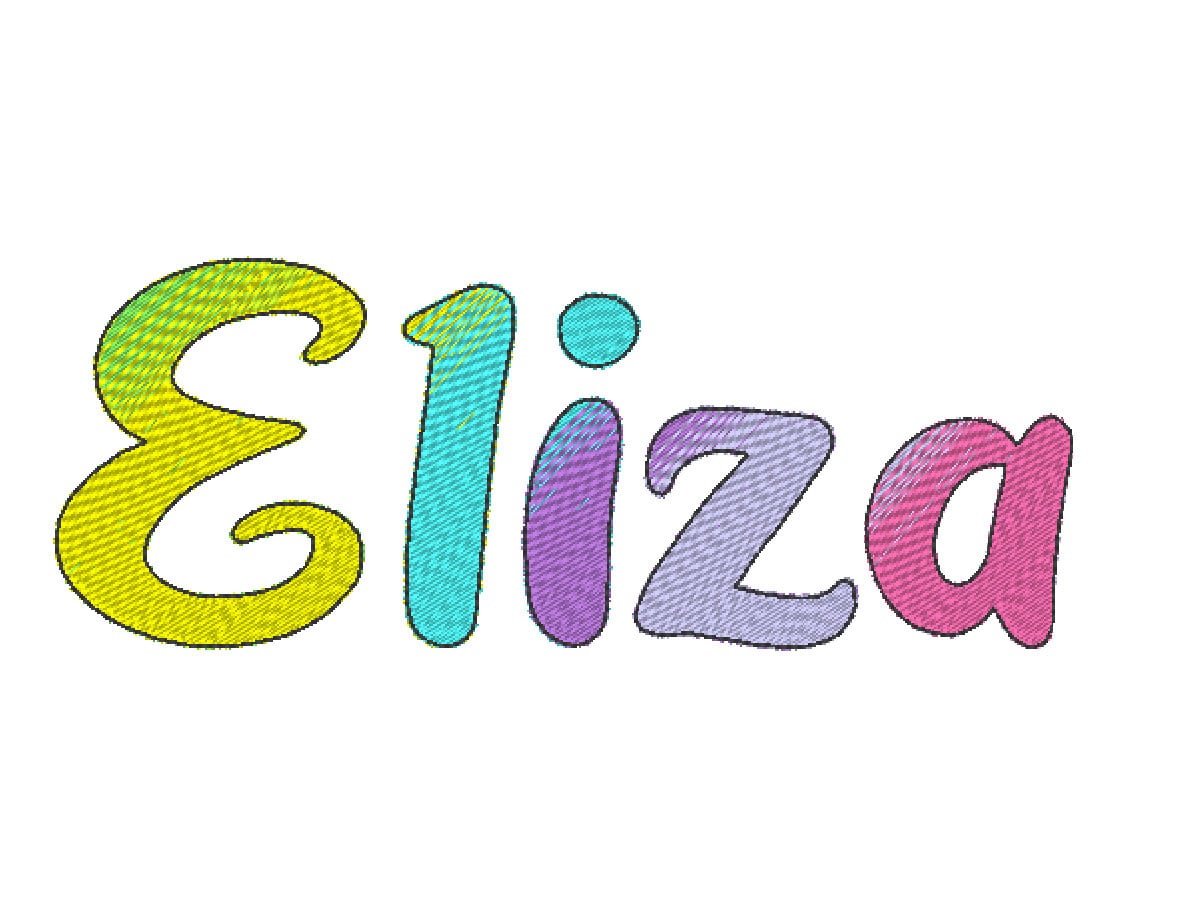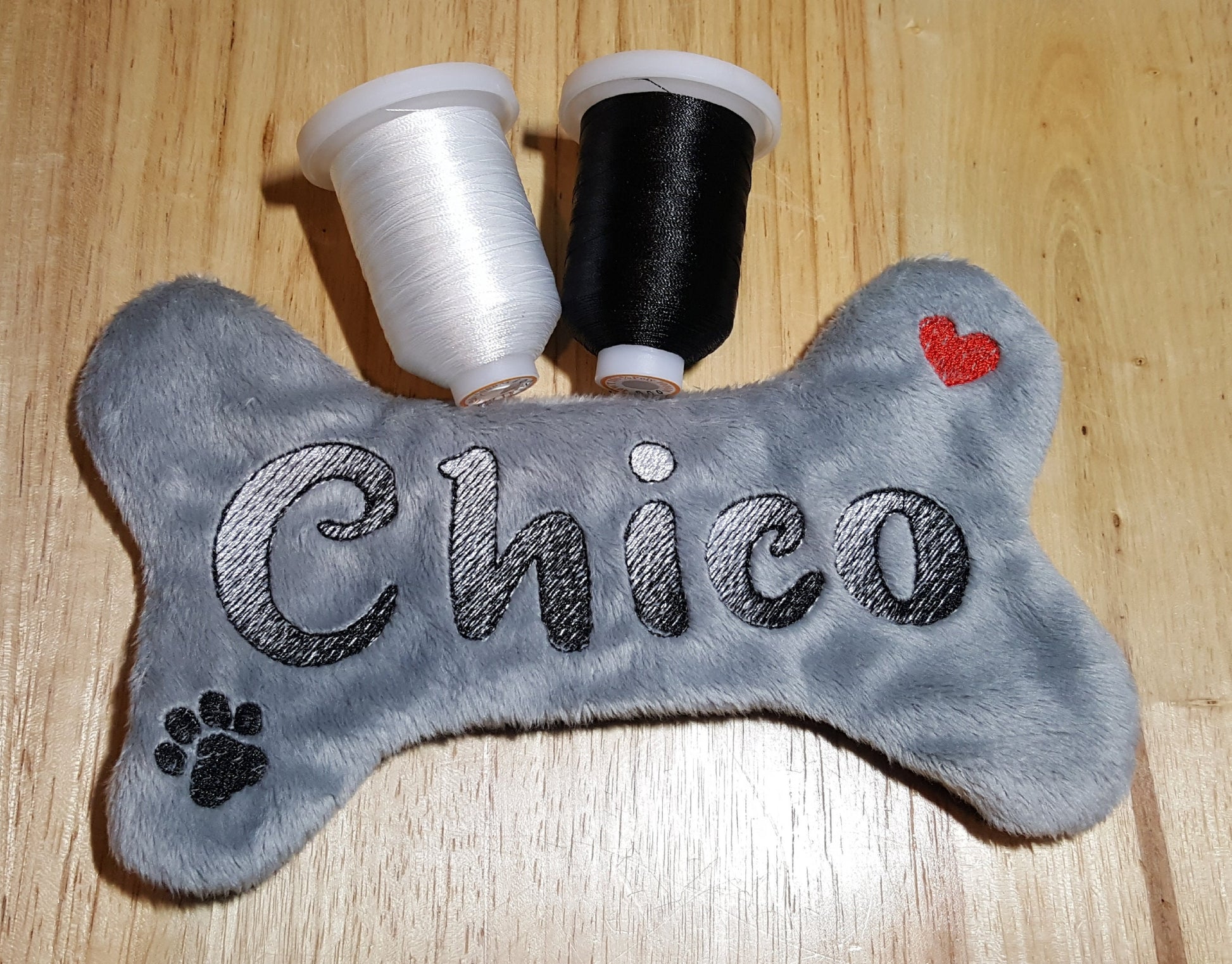
Iridescent Ombre Font Chico
Or click to open the linkChico, an iridescent font stitched with two ordinary thread colors that blend into a rainbow gradient. No special thread needed. Lovely for names, monograms and sayings.
Uppercase and lowercase letters, numbers 0 to 9 and punctuation in six sizes: 1.2, 1.6, 2, 2.4, 2.8 and 3.1 inches. Each letter shifts from one thread color to the other, so it shimmers all by itself.
- Iridescent 2-color gradient font
- Uppercase, lowercase, numbers 0 to 9, punctuation
- 6 sizes, 1.2 to 3.1 in